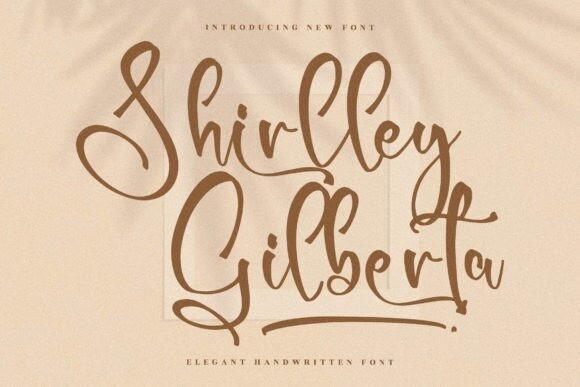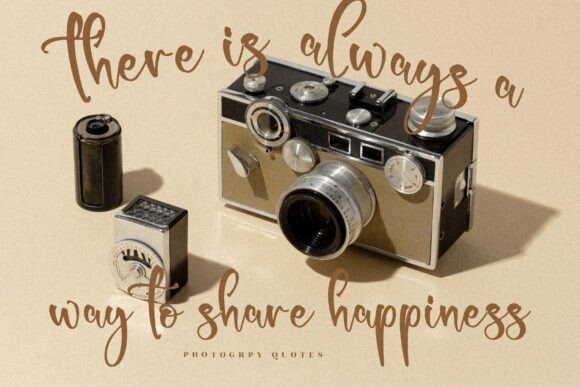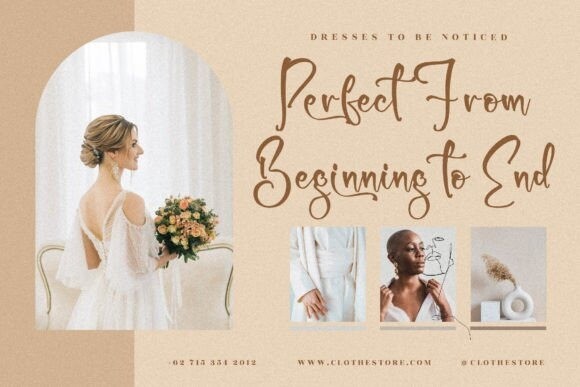
Shirlley Gilberta Font
Shirlley Gilberta feels playfully nostalgic and delivers an incredible vintage aesthetic. Use this serif font to add that special retro touch to any design idea you can think of!